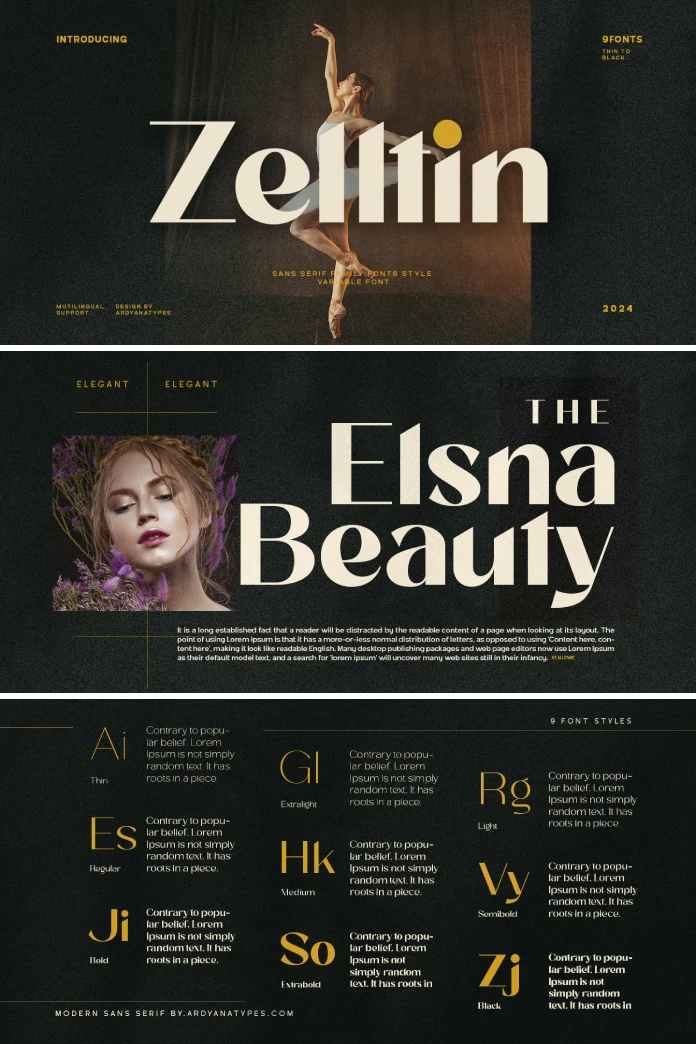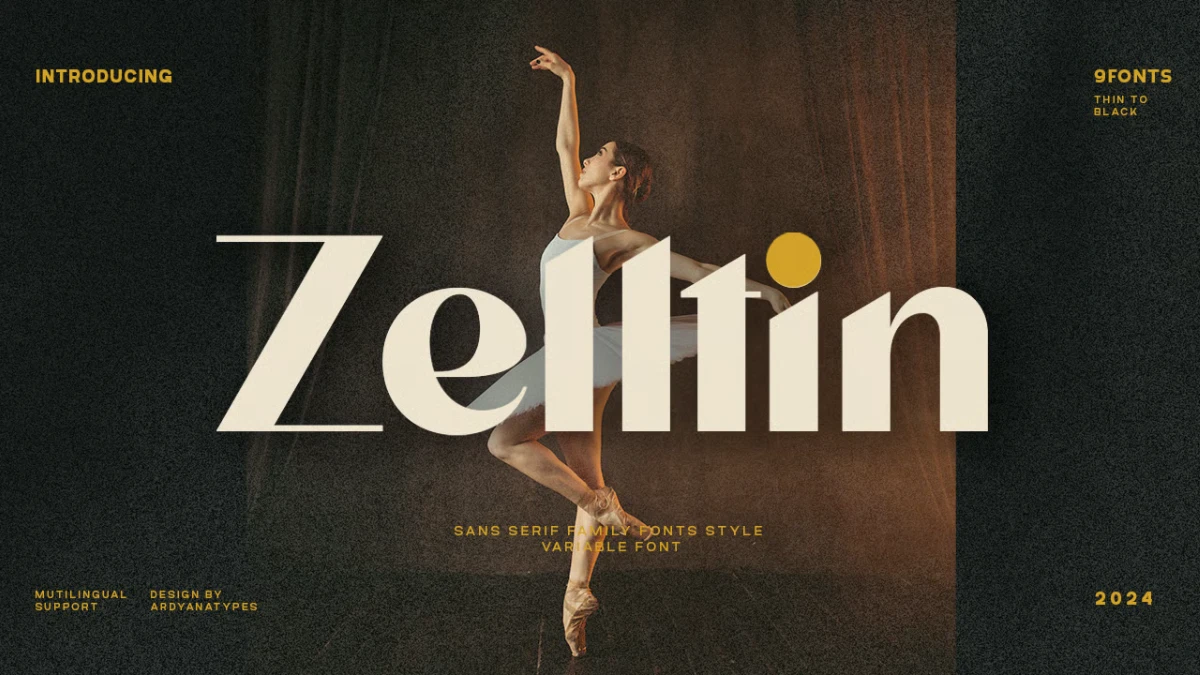
Zelltin is the Modern Typeface Redefining Cinematic Elegance
In the ever-evolving landscape of typography, the Zelltin font family emerges as a significant contender. Ardyanatypes, a notable foundry, designed this sans serif with a clear vision. It masterfully blends classic elegance with a distinctly modern functionality. This makes the Zelltin font family an indispensable tool for creative professionals. Graphic designers, creative agencies, and the film industry, in particular, will find it invaluable. Zelltin offers a sophisticated solution for creating impactful and memorable designs. Its clean lines and balanced proportions provide a timeless quality. Consequently, this typeface ensures that any project it graces will stand out with an air of refined professionalism.
What Defines the Zelltin Font Family?
At its core, the Zelltin font family is a study in versatility. It comprises nine distinct font styles, ranging from a delicate Thin to a powerful Black. This extensive range allows for incredible flexibility in various typographic applications. For instance, a designer could use the lighter weights for elegant body text. The bolder weights, in contrast, are perfect for creating commanding headlines. Furthermore, Zelltin incorporates advanced variable font features. This technology empowers designers to fine-tune the weight and width of the font with precision. Therefore, it allows for a level of customization that is simply not possible with traditional static fonts. This adaptability makes the Zelltin font family a truly dynamic and responsive choice for any creative endeavor.
Why Designers Are Choosing the Zelltin Typeface
The reasons for adopting the Zelltin font family are as varied as its applications. One of the most compelling arguments for its use is its sheer versatility. The spectrum of styles from Thin to Black accommodates a wide array of design aesthetics. A minimalist brand, for example, might gravitate towards the lighter weights. Conversely, a bold and assertive campaign could leverage the Black style for maximum impact. The inclusion of variable font technology is another significant draw. It provides designers with granular control over their typography, enabling subtle adjustments that can dramatically alter the mood and impact of a design.
Moreover, Zelltin offers extensive multilingual support. This feature is crucial for brands and projects with a global reach. It ensures consistent and accurate communication across different languages and cultures. What does this mean for your design process? It means you can maintain a cohesive brand identity, regardless of the target audience’s location. The Zelltin font family, therefore, is not just a collection of fonts; it is a comprehensive typographic system designed for the modern, globalized world.
How to Maximize the Potential of the Zelltin Font Family
To truly harness the power of the Zelltin font family, it is essential to understand its features. The extensive character set, which includes uppercase and lowercase letters, numerals, and punctuation, provides a solid foundation for any project. However, the true creative potential lies within its ligatures and alternates. These stylistic variations offer opportunities to add a unique and personalized touch to your typography. How can you access these powerful features?
Ideal Applications for This Elegant Sans Serif Font
The adaptability of the Zelltin font family makes it suitable for a wide range of applications. In the realm of branding and logo design, its clean and modern aesthetic can help to create a strong and memorable visual identity. For editorial layouts, its readability and range of weights ensure a pleasant reading experience while allowing for clear hierarchical distinctions.
When it comes to posters and advertising campaigns, Zelltin’s bolder weights can create eye-catching headlines that demand attention. Perhaps one of its most fitting applications is in movie titles and cinematic projects. The font’s inherent elegance and professionalism lend a sense of gravitas and sophistication to on-screen typography. Whether you are searching for a versatile modern typeface or an elegant sans serif font, the Zelltin font family offers a comprehensive and professional solution for your typographic needs. Its thoughtful design and extensive features make it a valuable asset for any designer looking to create work that is both beautiful and effective.